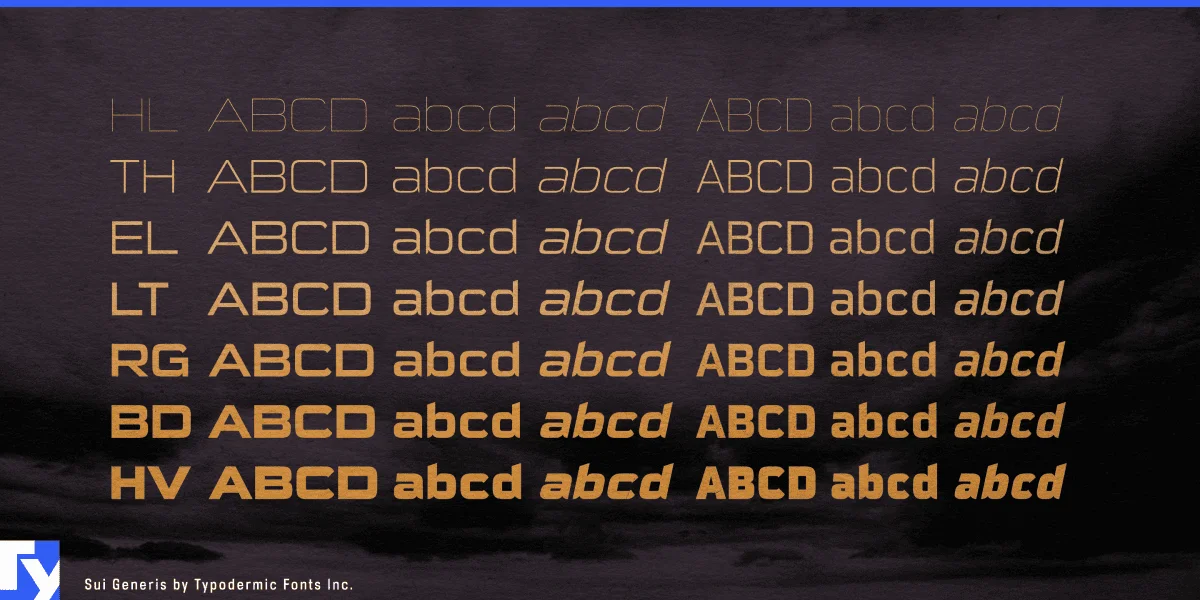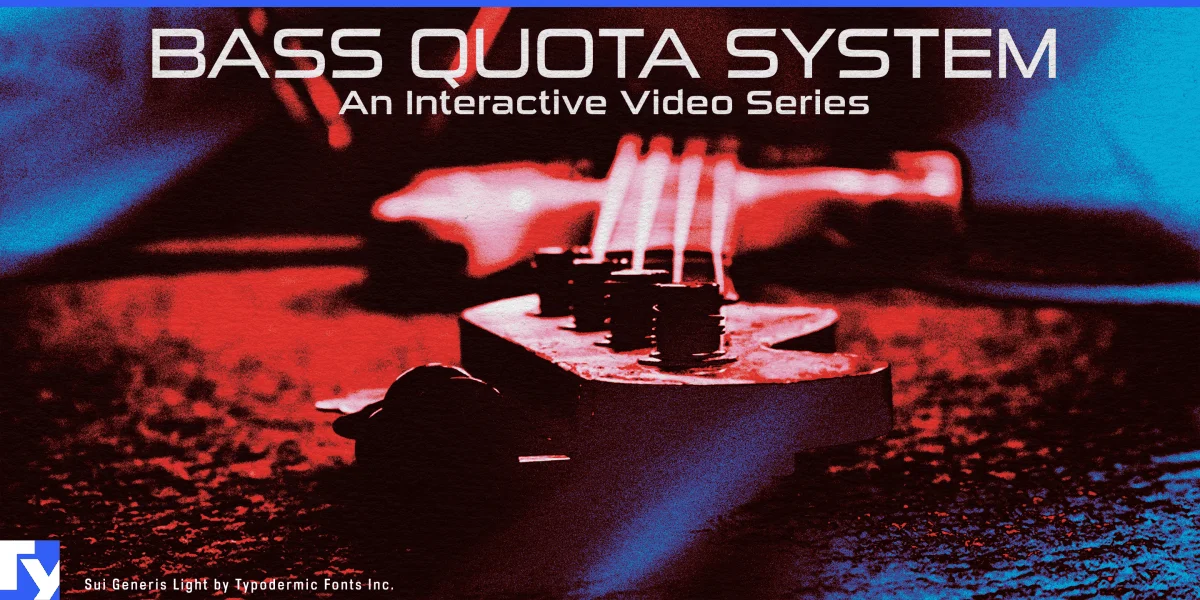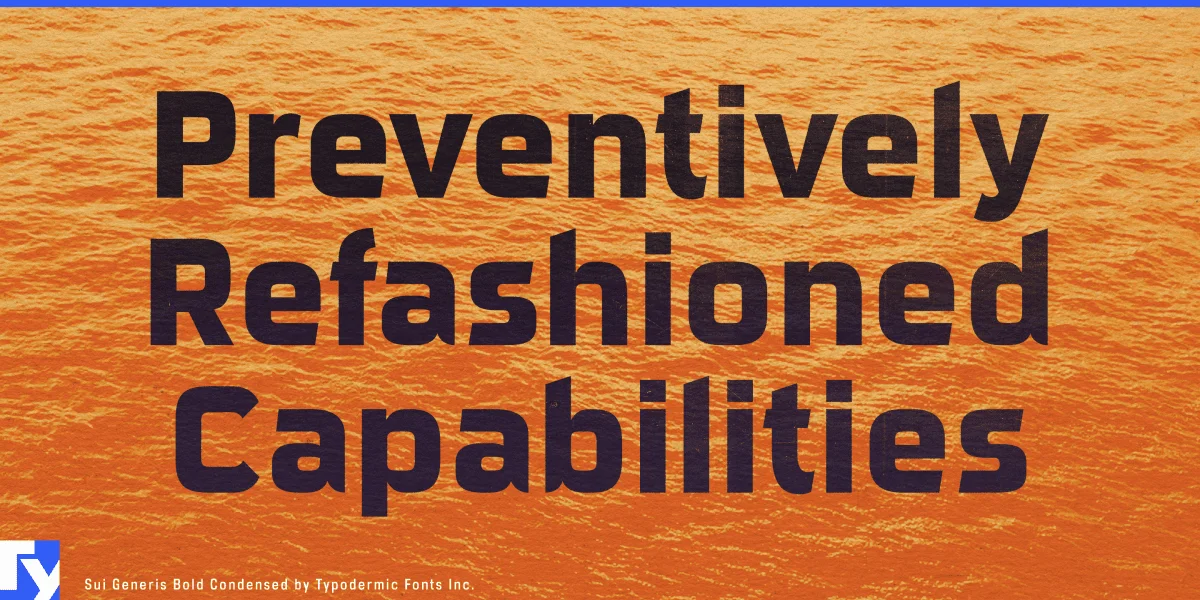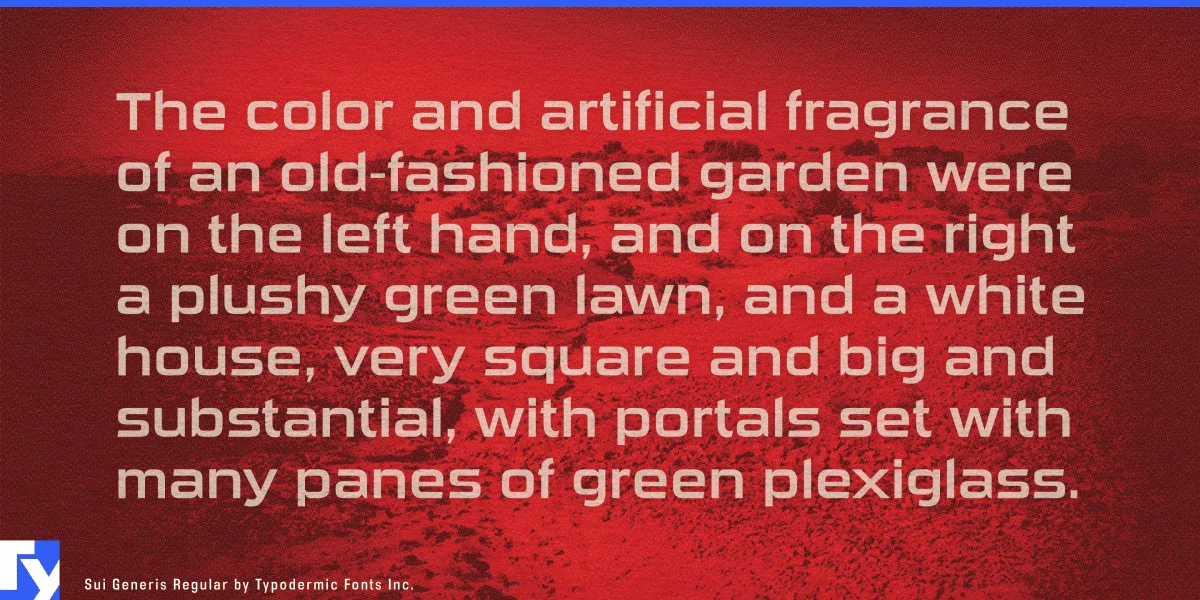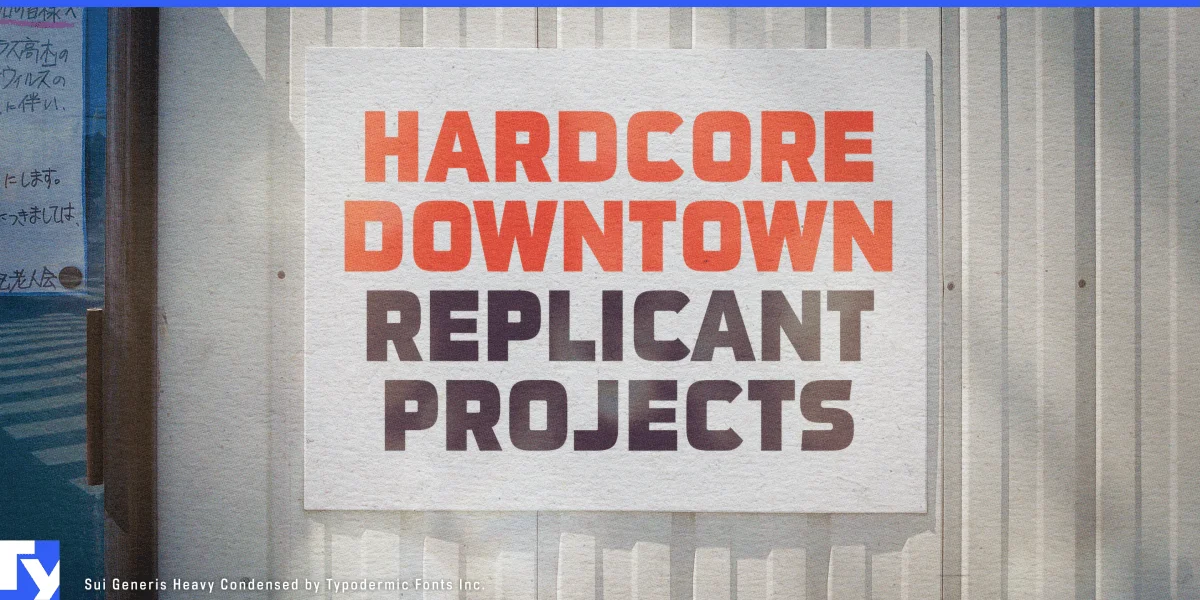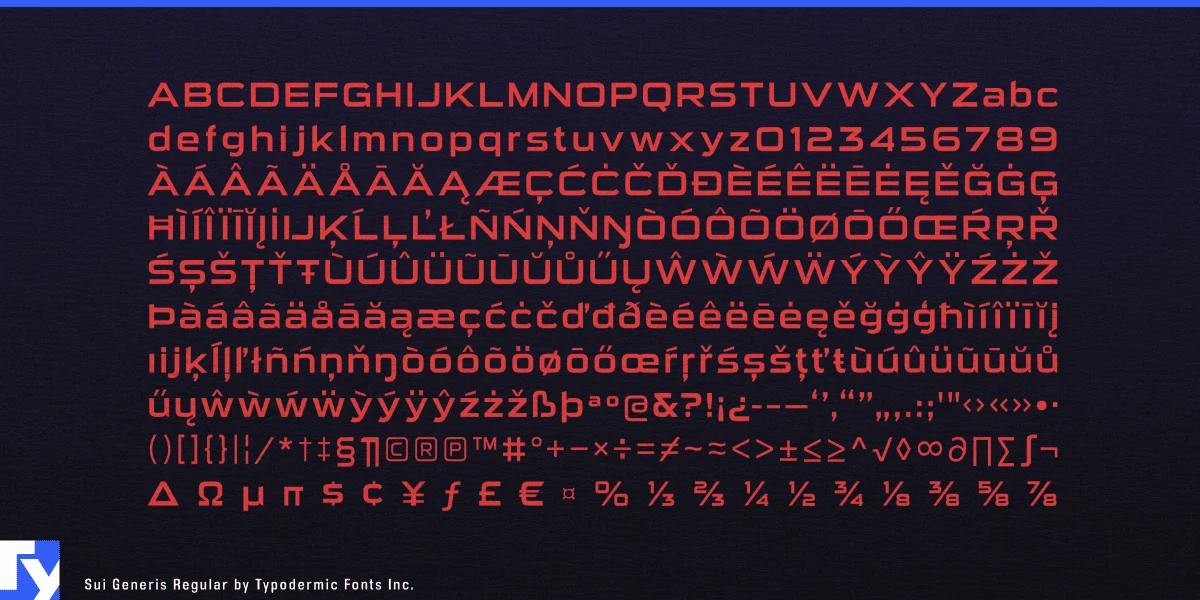
Sui Generis is a rebellion against the mundane, a celebration of the unconventional. This rounded square sans-serif marches to the beat of its own drum, eschewing the polished perfection of its peers for something far more intriguing: character.
At first glance, Sui Generis might seem a bit… off. Its technical letterforms and boxy curves don’t conform to traditional notions of elegance. But therein lies its genius. In a world of cookie-cutter designs, Sui Generis stands proudly awkward, turning its quirks into strengths. It’s not trying to be the prettiest face at the party—it’s aiming to be the most memorable. The typeface’s industrial character isn’t just unique; it’s unapologetic. Sui Generis doesn’t whisper for attention—it commands it through sheer force of personality. Its understated charm is like that slightly eccentric friend who always has the best stories at dinner parties. You can’t help but be drawn in, even if you’re not quite sure why.
But don’t mistake its quirkiness for impracticality. Sui Generis is a chameleon, adapting to a variety of design challenges with ease. With four weights, two widths, italics, and an outline style, it’s ready to tackle everything from edgy brand identities to avant-garde editorial layouts. It’s the Swiss Army knife of unconventional typography—versatile, reliable, and always interesting. Sui Generis speaks fluently in a multitude of languages, its distinctive voice carrying across borders and cultures. From the cobblestone streets of old European towns to the bustling markets of Southeast Asia, this typeface communicates with a universal language of individuality.
Choose Sui Generis when you’re ready to break free from the tyranny of the expected. It’s for the brands that dare to be different, the messages that refuse to blend in, and the designers who understand that perfection is overrated. In a sea of sameness, Sui Generis is the typographic equivalent of a purple cow—impossible to ignore and delightfully unforgettable.
So embrace the quirks, celebrate the unconventional, and let Sui Generis be the voice of your design’s unique personality.